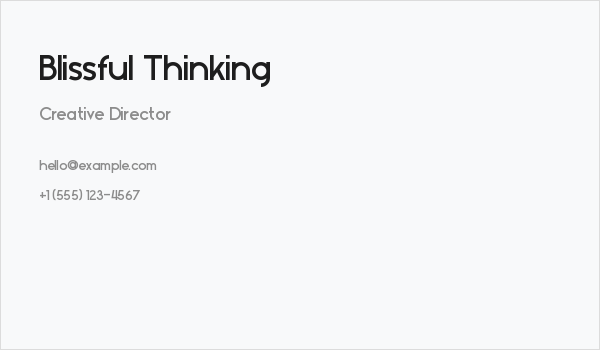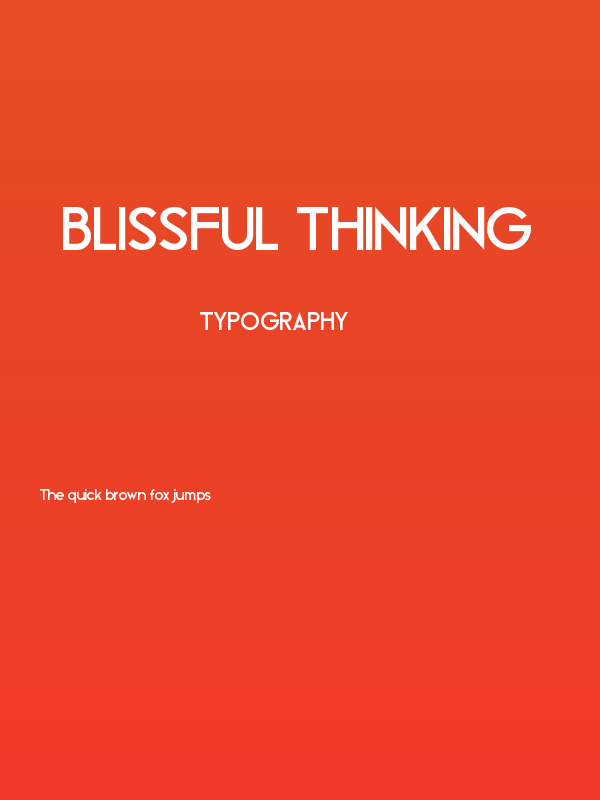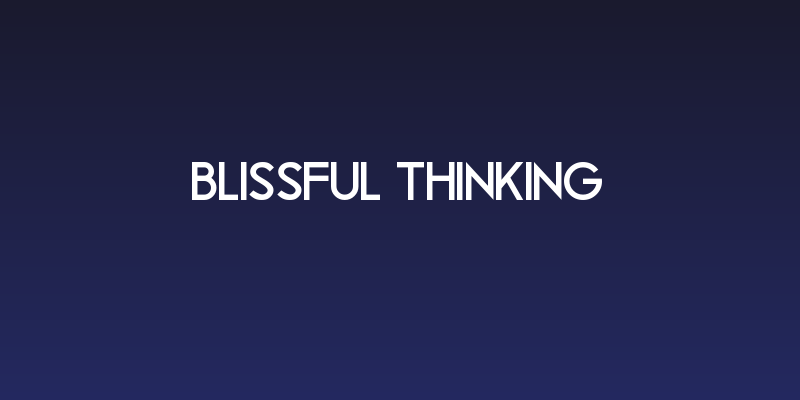
Blissful Thinking Font
Blissful Thinking Description
This font features a clean and modern sans-serif style with smooth, rounded edges and uniform stroke widths. The characters are well-proportioned, offering a harmonious and balanced appearance. Its geometric structure provides a contemporary feel, making it versatile for various design applications. The uppercase and lowercase letters maintain consistency in style, while the numerals and special characters are clear and easily legible. This font's simplicity and elegance make it suitable for both digital and print media.